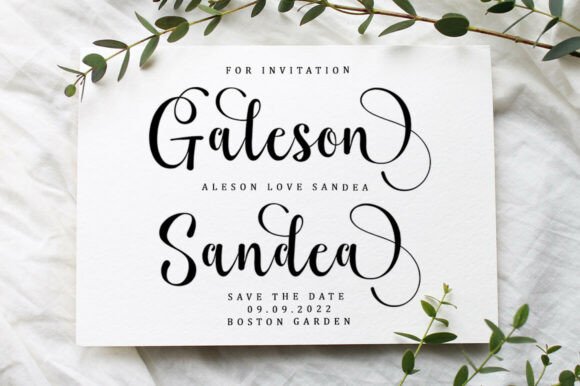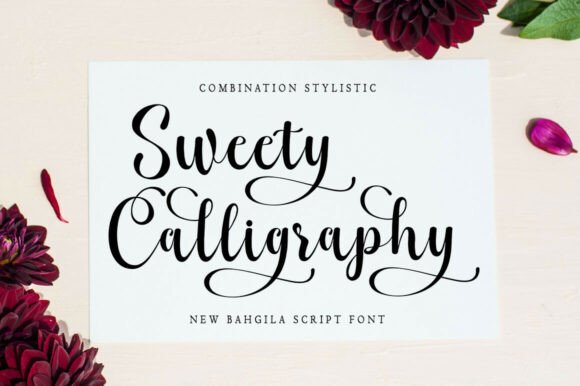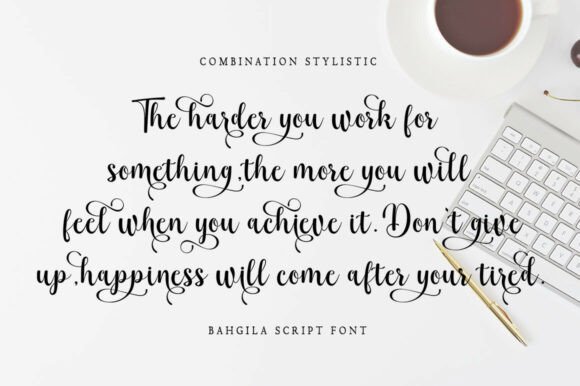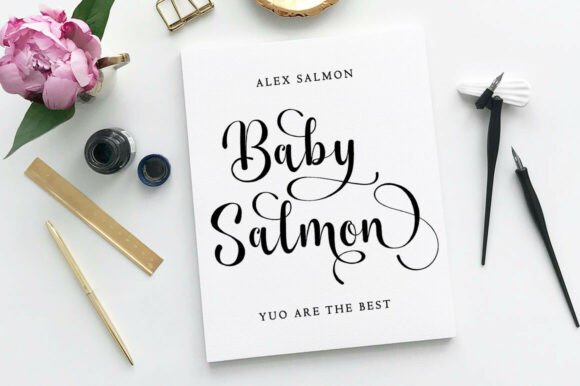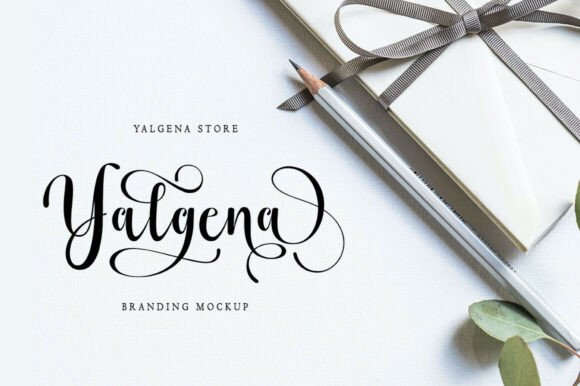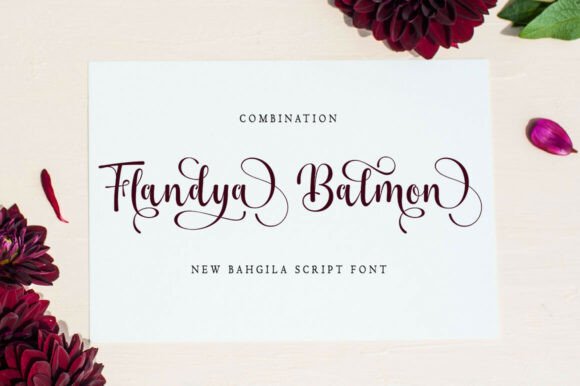
The Calligraphy Script That Brings Sophistication to Your Designs
Have you ever been stuck on a design project, searching for the perfect font to convey the message you envision? You’ve poured your heart and soul into the concept, but something’s missing – a certain je ne sais quoi that elevates it from good to great. For designers, finding that elusive touch can be a challenge, but what if I told you that the answer lies in the elegant strokes of the Bahgila Font?
This modern calligraphy script is more than just a font – it’s a statement piece that brings sophistication and drama to any project. With its clean lines and professional finish, Bahgila Font is perfect for creating high-end logos, social media quotes, and packaging that exudes luxury and elegance. Whether you’re working on a perfume label or a wedding invitation, Bahgila Font is the perfect tool to help you achieve your design goals.
Bahgila Font Key Features
- Font Family: Bahgila Font is a unique, hand-drawn font family designed for use in various design projects.
- Character Count: The font family includes over 300 characters, including uppercase and lowercase letters, numerals, punctuation marks, and special characters.
- Unique Characteristics: The font’s distinctive hand-drawn style and organic feel make it ideal for use in creative, artistic, and design-focused projects.
Bahgila Font Review
Overall, I think the Bahgila font is a nice addition to any designer’s toolkit. ✨ The font’s unique, handwritten feel is perfect for adding a touch of personality to branding materials, advertisements, or even digital products. The font’s versatility shines through in its multiple weights and styles, making it easy to adapt to different design needs.
- Unique handwritten feel
- Multiple weights and styles
- Perfect for branding materials, advertisements, and digital products
However, I do have some reservations about the font’s limitations. ⚠️ The font may not be the best choice for body text or large blocks of text due to its irregular letter spacing and potential readability issues. Additionally, the font’s high contrast between thick and thin lines may not be ideal for designs where subtlety is key.
- Irregular letter spacing may lead to readability issues
- High contrast between thick and thin lines may not be suitable for all designs
Despite these limitations, I think the Bahgila font is a great choice for designers who want to add some flair to their designs. With a little creativity and restraint, this font can be a valuable addition to any designer’s toolkit.
To get the most out of the Bahgila font, try combining it with other elegant fonts and using it in creative ways, such as:
- Using it as a title font to add a touch of sophistication
- Combining it with bold fonts to create a striking contrast
- Using it in creative layouts to add visual interest
The Bahgila font is ideal for:
- Personalized gifts and stationery